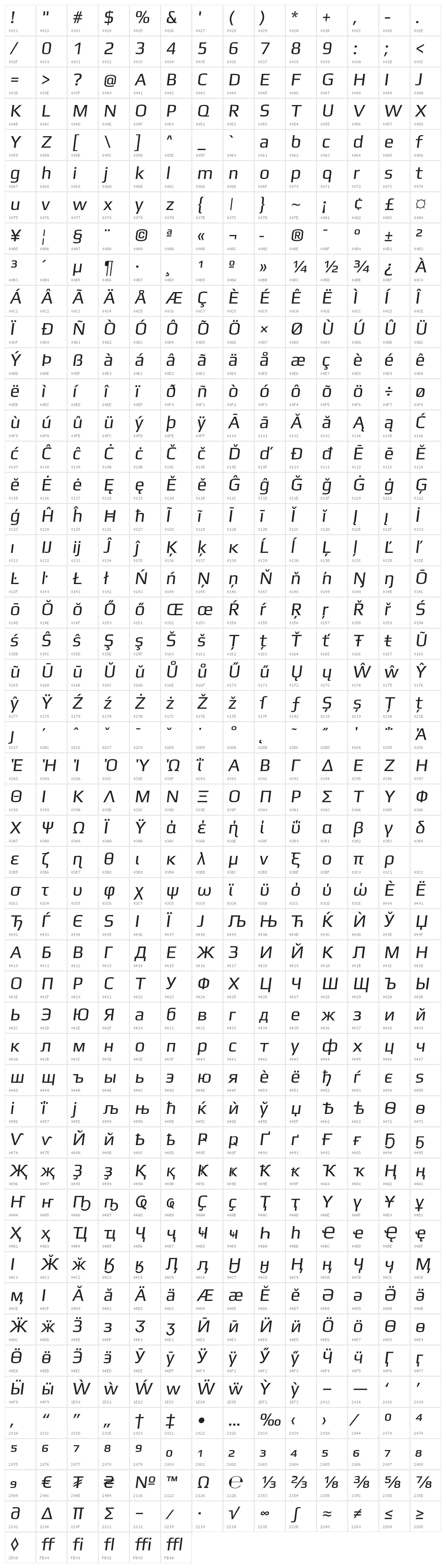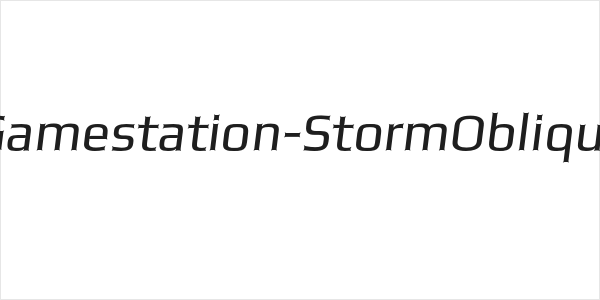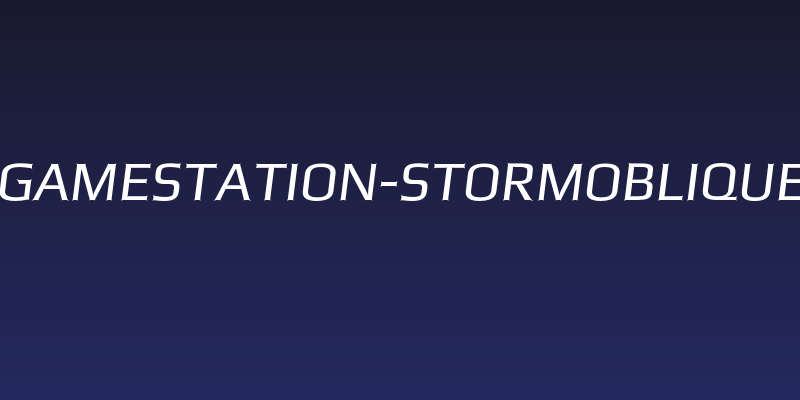
Gamestation-StormOblique Font
Gamestation-StormOblique Description
This font features a sleek, modern design with a distinct oblique slant, giving it a dynamic and forward-moving appearance. The characters are crafted with precision, showcasing a clean and streamlined aesthetic. The uppercase and lowercase letters maintain a consistent style, with smooth curves and sharp angles that enhance readability. Numbers and special characters are designed to match the overall style, ensuring a cohesive look across all text. The font's contemporary feel makes it suitable for a variety of digital and print applications.
| Use Case | Headlines, Logos, Digital interfaces |
| Proposed Projects | Ideal for tech branding, video game titles, futuristic posters, and digital interfaces. |